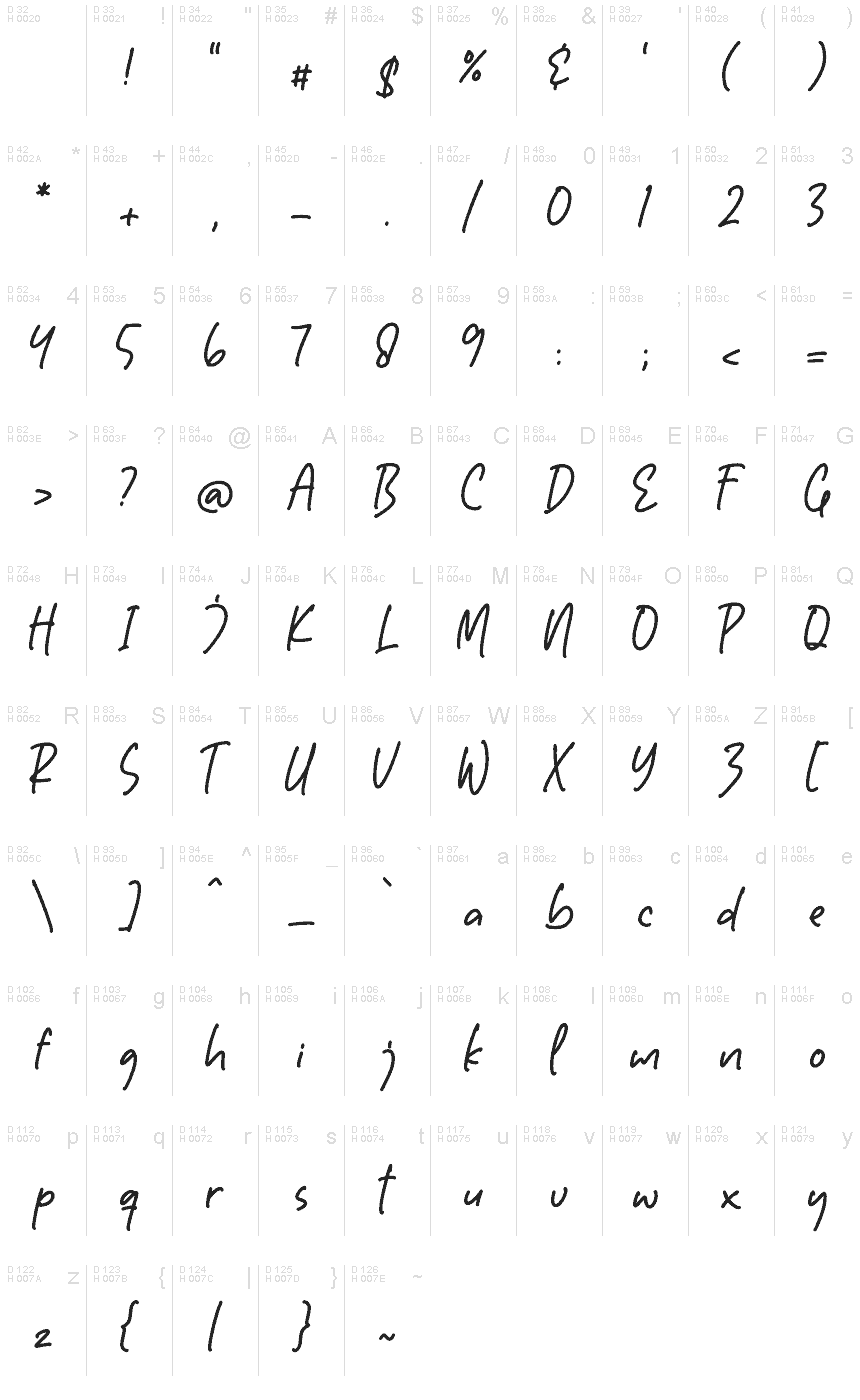
Morgan Notes
Morgan Notes font by Perspectype Studio - Letterena.com is a free handwritten font. Its casual, relaxed, and approachable style gives it a modern appearance that can be used to create friendly and unforced designs. It stands out from other script fonts due to its light weight which clearly appears in the uniformly thin strokes of each letter.
Incorporate this typeface into greeting cards for special occasions like weddings, engagements, or birthdays. It works perfectly for branding projects, product packaging designs along with labels and photography presentations. Use it on magazine covers or as headlines and also on invitation cards professionally or personally.